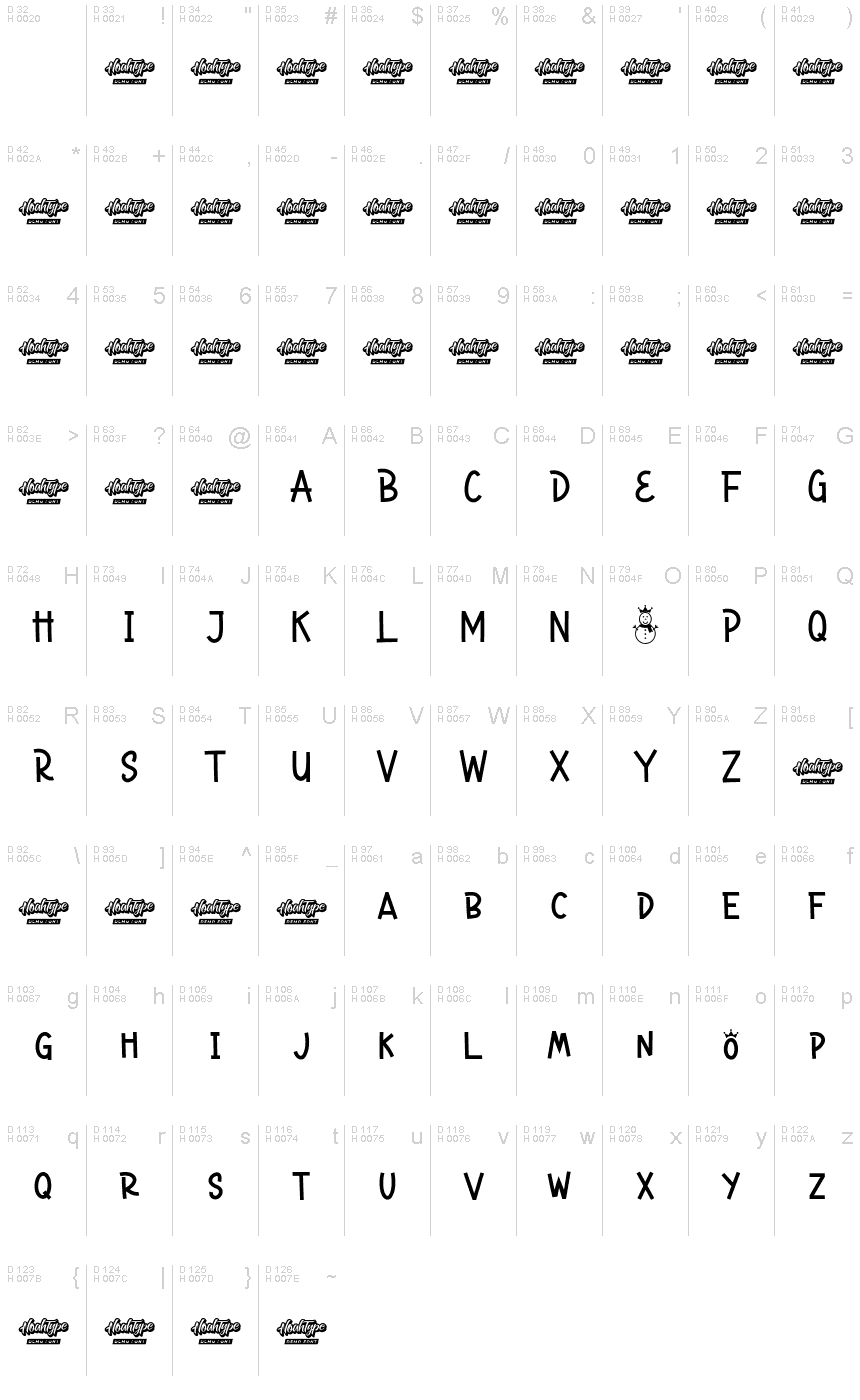
Snowy Crown is a light, cartoon-style display font designed by Widiyanti & Sarah SP. Perfect for creating a fun and playful vibe, this font is great for projects such as children's books, greeting cards and posters.